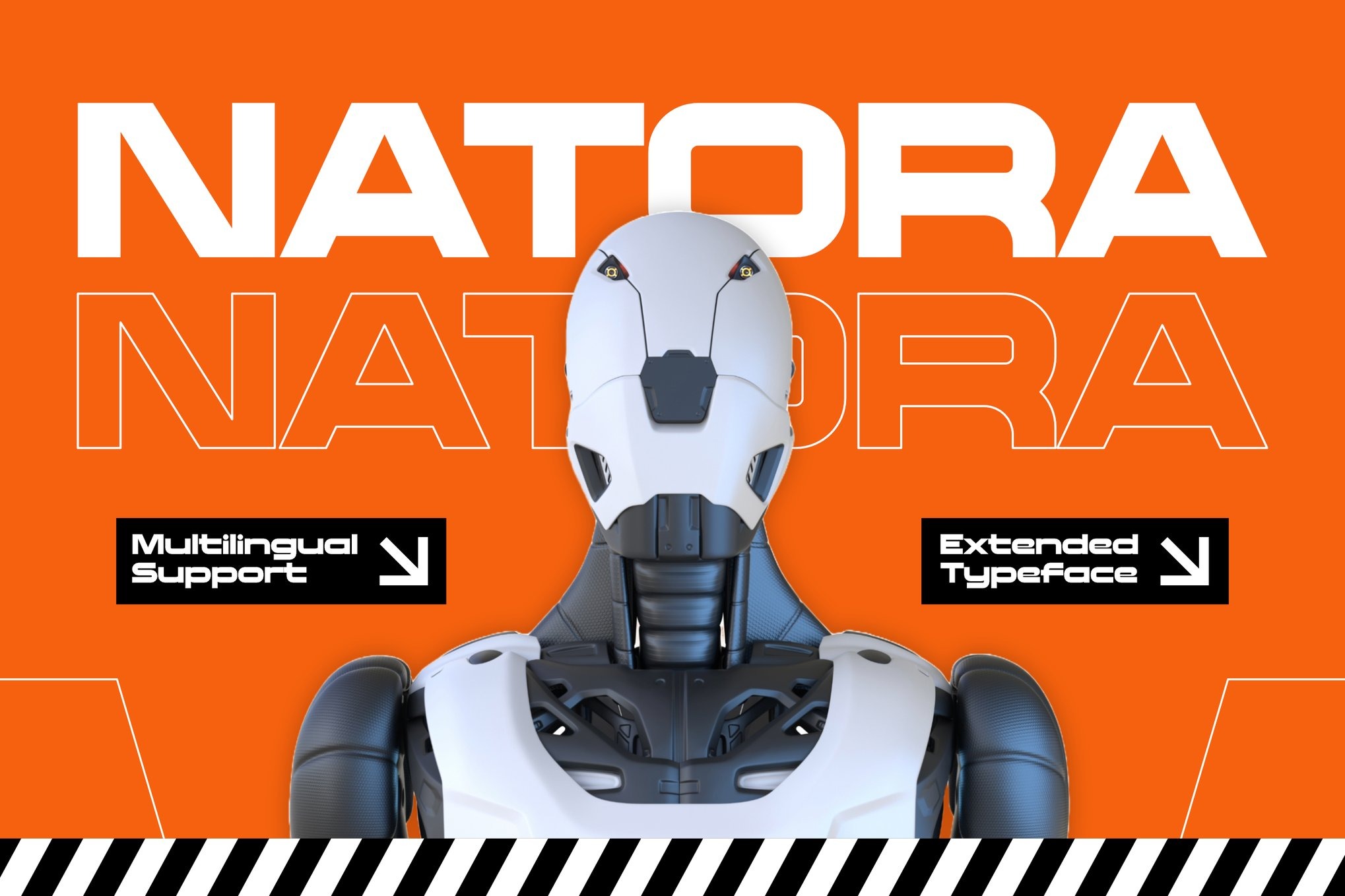
Natora – Modern Techno Font
Natora – Modern Techno Font is a premium-quality font developed to enhance your work with a polished, modern, and visually elevated look. NATORA is a futuristic geometric display typeface for bold tech branding, designed to deliver strong visual impact through wide proportions, sharp terminals, and modern geometric structure. Its clean mechanical rhythm and confident letterforms create a bold and forward-thinking tone.
The design carries a modern tech vibe—structured, energetic, and confident. Wide characters and squared curves give the typeface a digital-inspired presence, making it highly effective for technology brands, gaming graphics, modern posters, and digital interfaces. Built with multilingual support for 67 languages, NATORA also expands your creative reach globally. Whether used in branding systems or editorial headlines, it maintains a strong and consistent visual identity.
In modern visual communication, headlines must capture attention instantly. NATORA helps designers build powerful visual hierarchy with confident letterforms that stand out in crowded layouts. This makes it perfect for branding, posters, gaming visuals, tech startups, social media graphics, app UI, and editorial headlines. The bold geometry communicates innovation and precision—qualities often associated with technology, modern design, and digital culture.
For designers seeking a modern, futuristic voice, NATORA delivers a strong typographic presence that elevates visual storytelling.